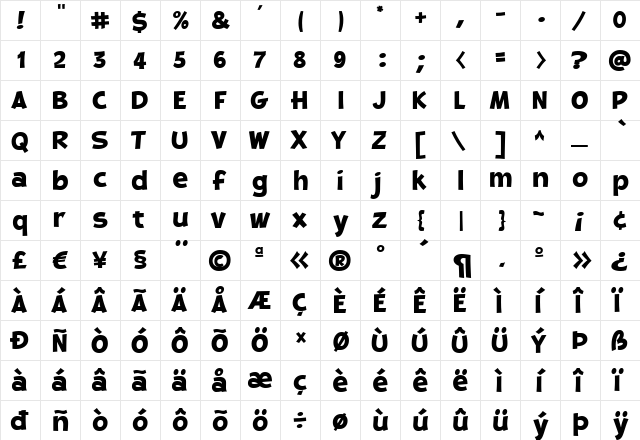
Comic Strip Poster Regular
Comic Strip Poster Regular trades formality for fun, with bouncy, characterful letterforms that bring warmth and energy to any project.
Great for children's books, toy packaging, family event branding, and casual consumer-facing design.
Font Pairing: Pairs well with a rounded or humanist sans for body copy, maintaining the friendly tone without relying on Comic Strip Poster Regular to carry extended reading.
Pro Tip: Avoid using Comic Strip Poster Regular for long passages of text — it works best for headlines, labels, and short calls to action.